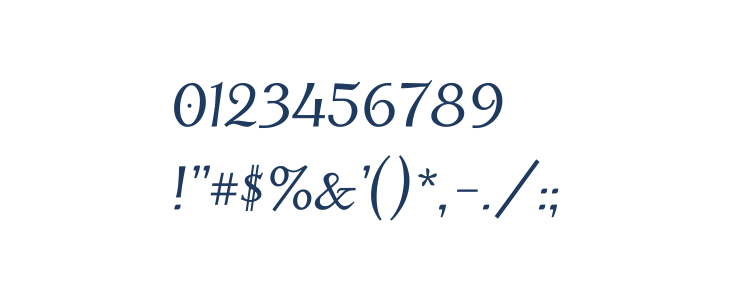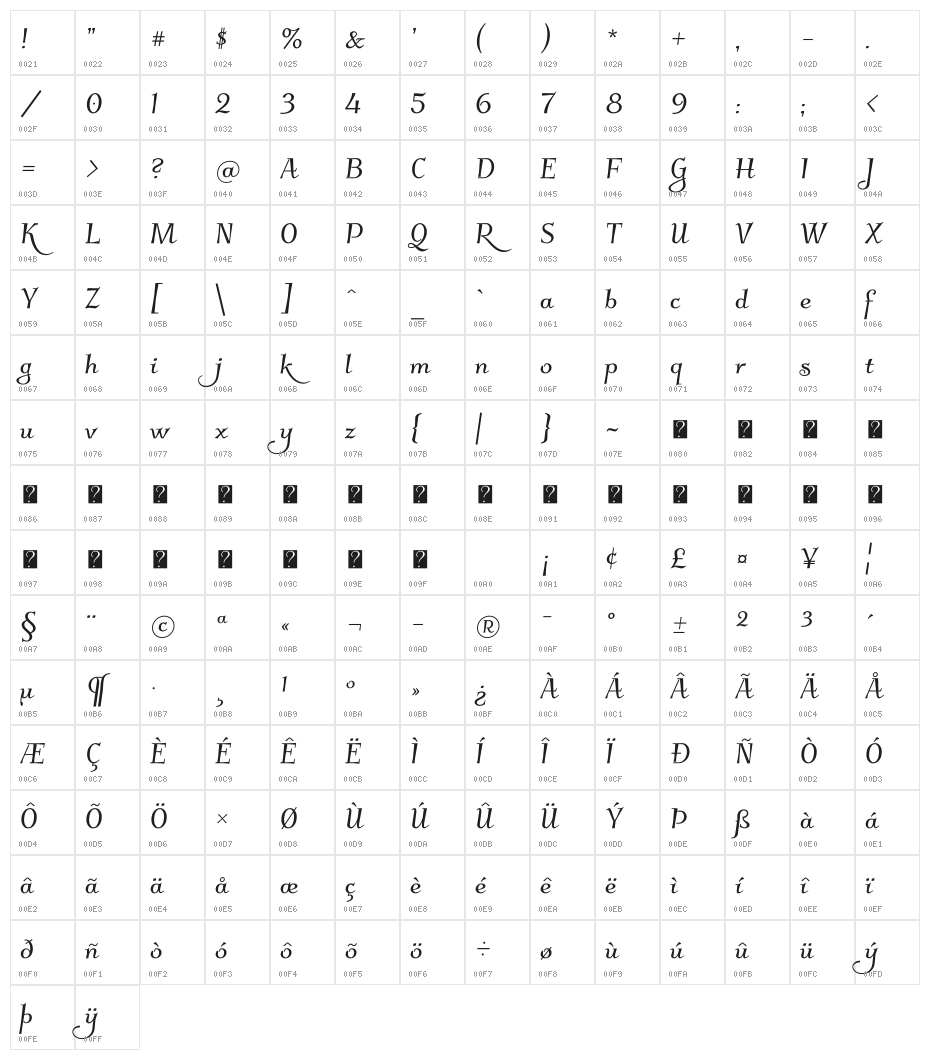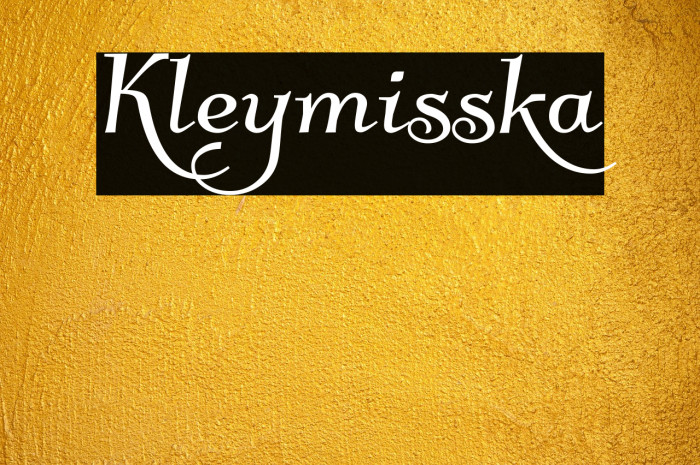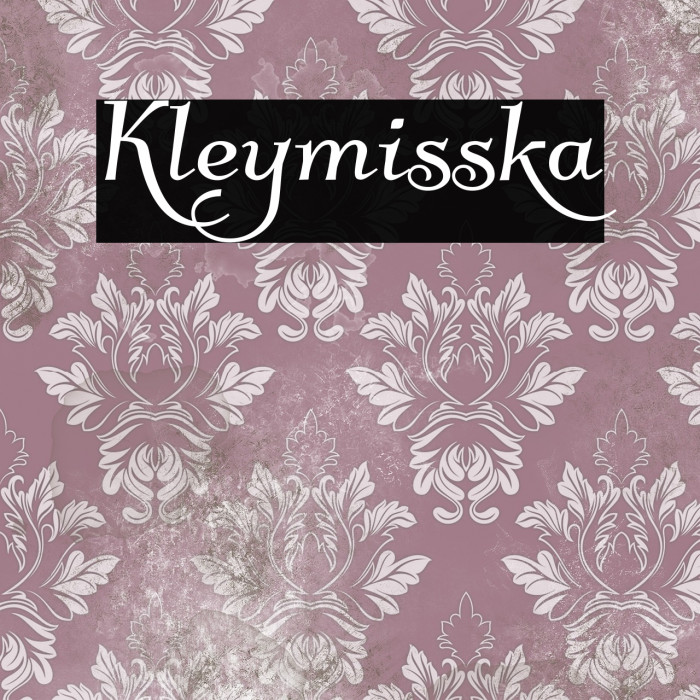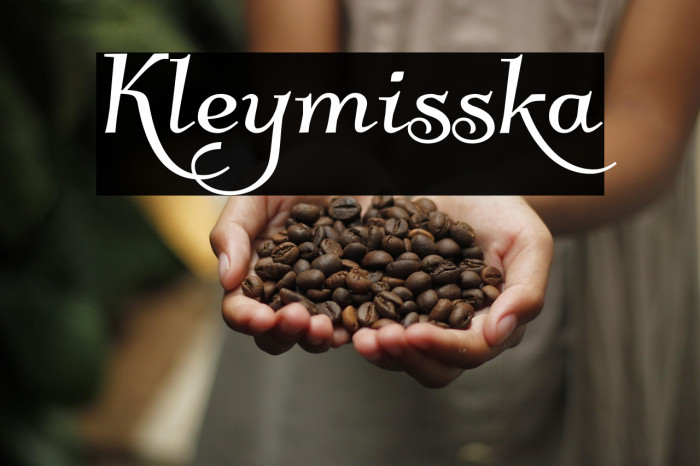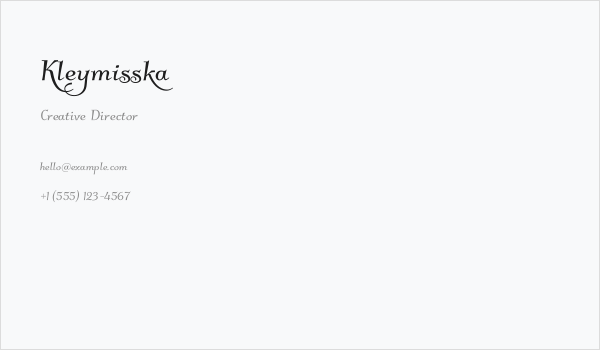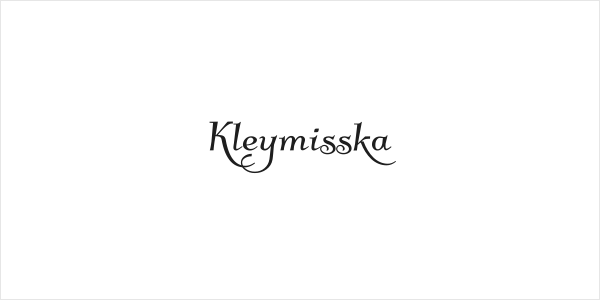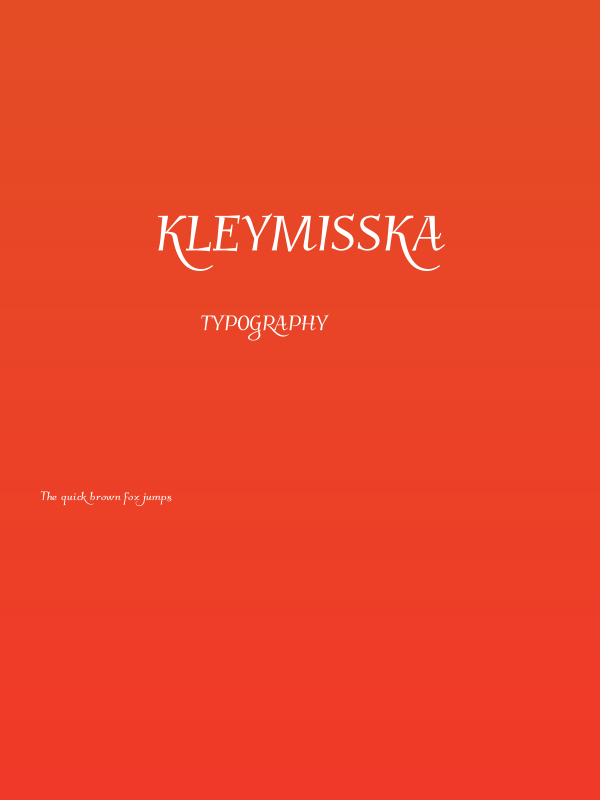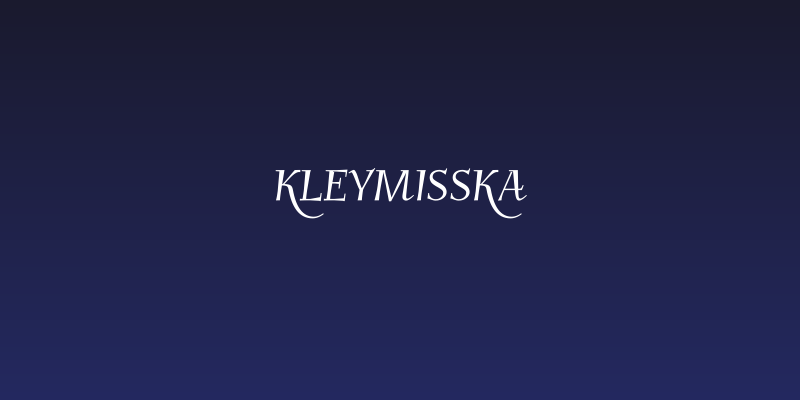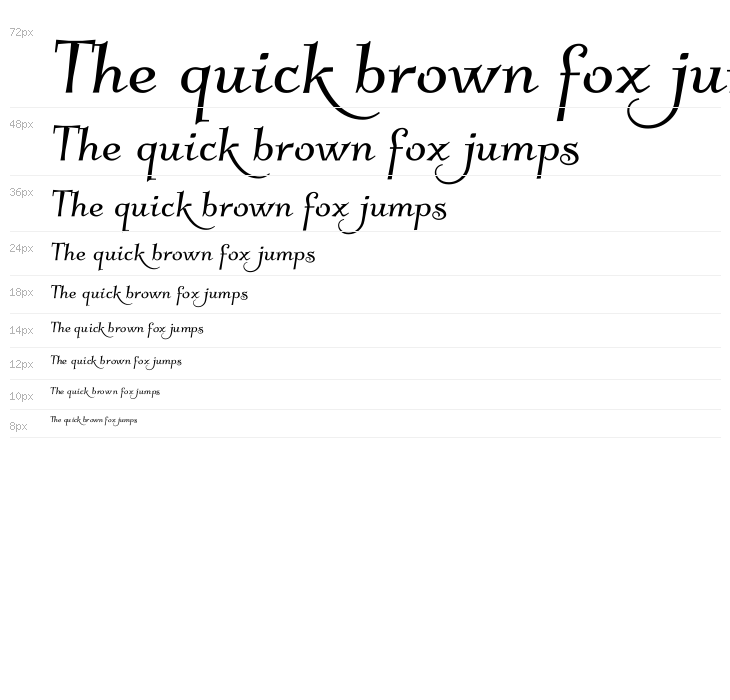
Kleymisska Font
Kleymisska Description
This font is a sophisticated and elegant script with a calligraphic flair. The uppercase letters feature graceful, sweeping lines and subtle curves, giving a sense of movement and fluidity. The lowercase characters maintain this elegance with smooth, flowing connections between letters. The numerals are distinct and maintain the same stylistic curves, ensuring consistency throughout. Special characters are designed with the same attention to detail, making them blend seamlessly with the rest of the font. This font is perfect for projects that require a touch of class and sophistication.
| Use Case | Logos, Invitations, Editorial design |
| Proposed Projects | Ideal for wedding invitations, elegant branding, high-end product packaging, and sophisticated editorial design. |